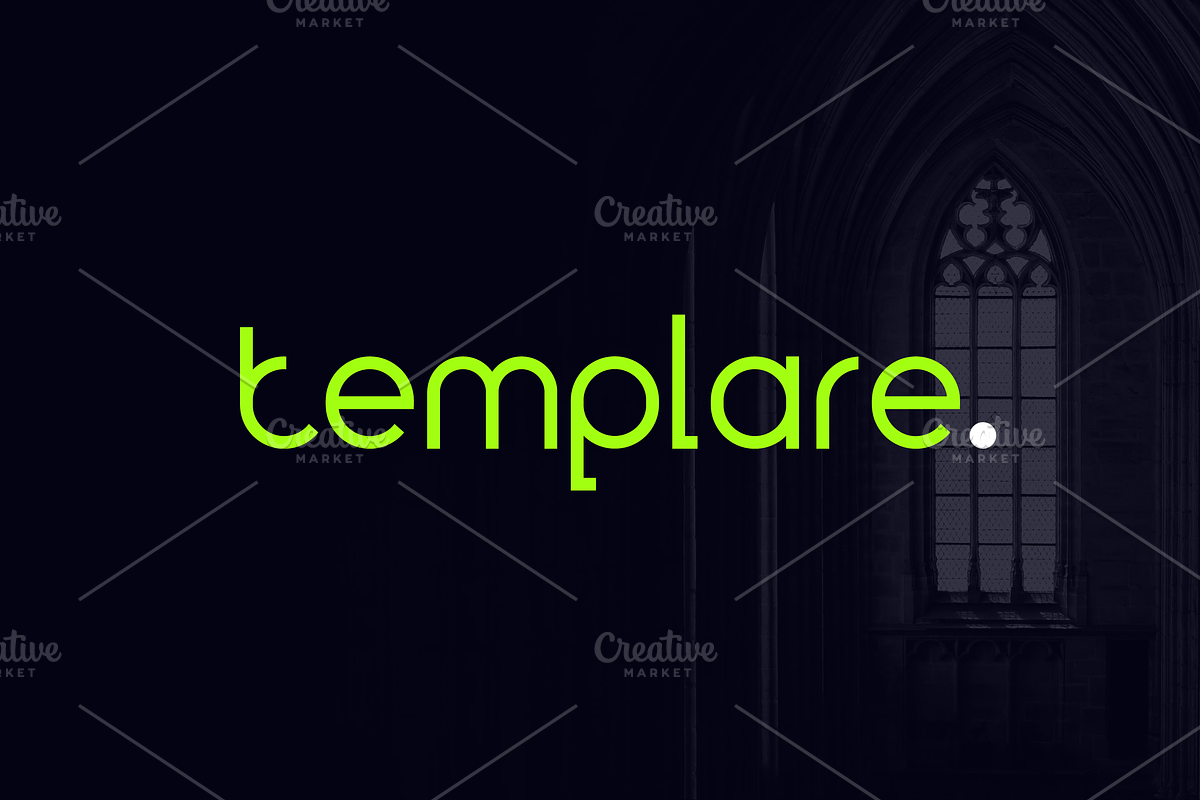
Please note that you must purchase this font for commercial use. You can download Templare – Minimalist Sans Font for free, strictly for personal testing purposes only. Templare is a clean, sleek sans-serif typeface designed with a minimalist aesthetic in mind. With its sharp geometry, balanced proportions, and modern simplicity, Templare Minimalist Sans Font Free Download is perfect for branding, editorial layouts, logos, websites, product packaging, and sophisticated social media content.
Its understated elegance makes it highly versatile for both large headlines and smaller text blocks, offering a polished, professional look. Templare typically includes uppercase and lowercase letters, numerals, punctuation, and multilingual support—making it suitable for global use.
Whether you’re building a luxury brand or designing a minimalist portfolio, Templare delivers clarity, style, and a modern edge.